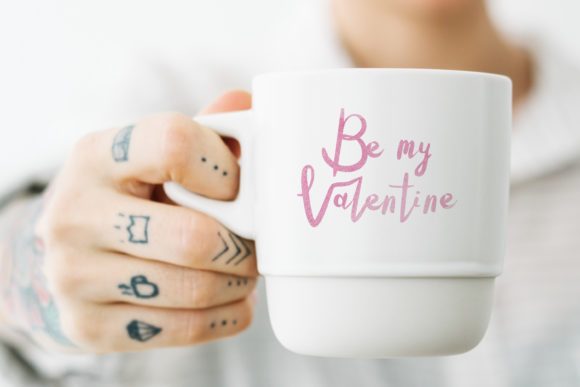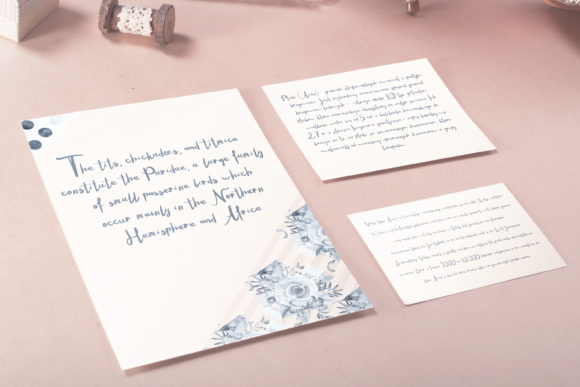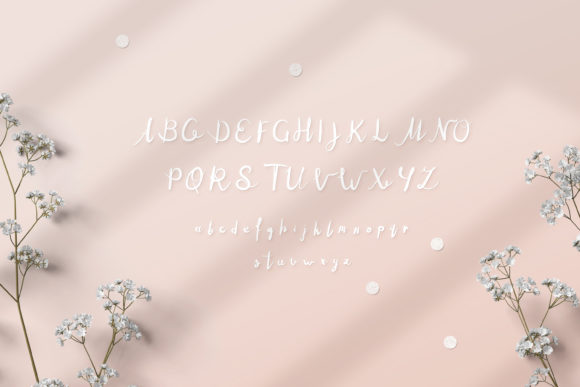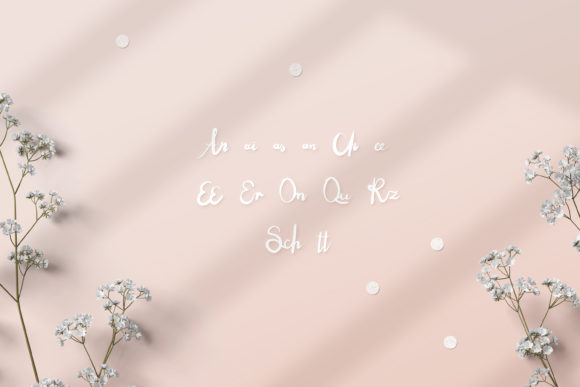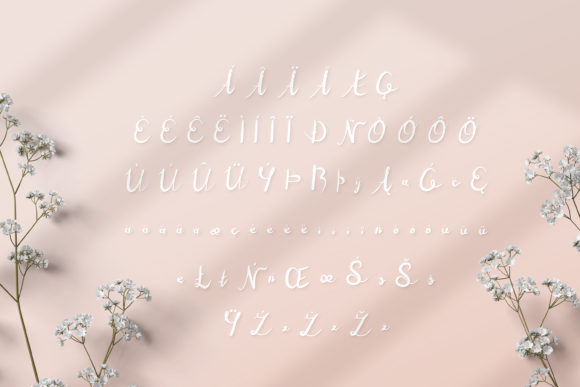
Milutki Font
About Milutki Font
Milutki is a relaxed and distinct handwritten font, created with the help of an outstanding brush pen. Its versatile style makes it incredibly fit for a wide range of designs.